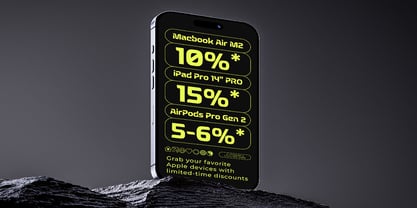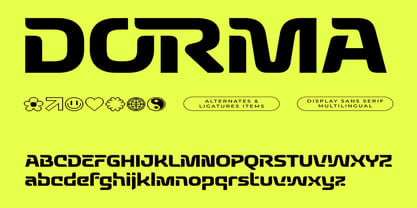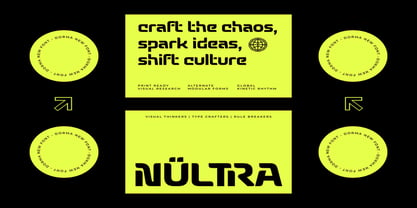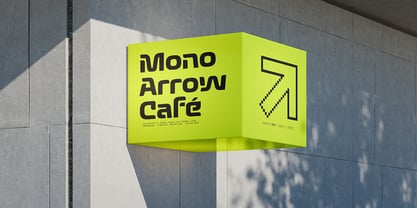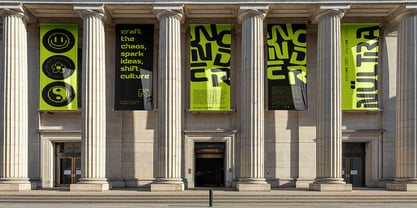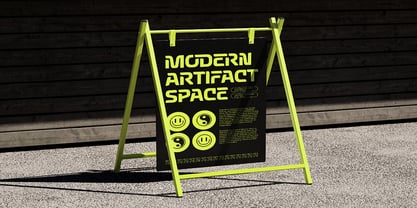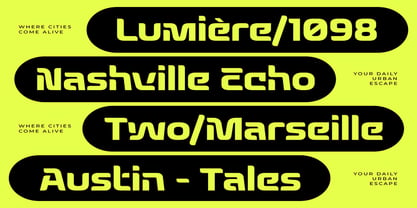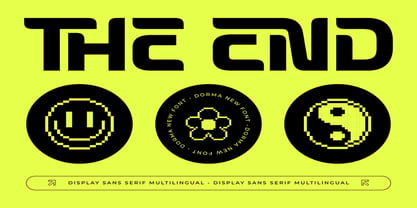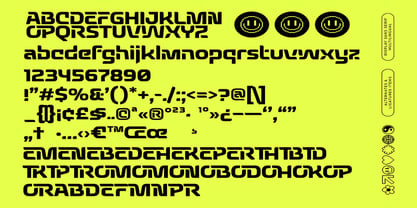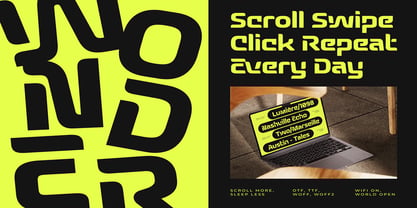
Dorma
Die Schriftfamilie Dorma wurde von Edy Subiyanto entworfen und von Jaruka Creative veröffentlicht. Dorma enthält 1 Stile. Mehr über diese Familie
Break the Rules. Shift the Culture. Meet DORMA
In a digital landscape filled with predictable typography, DORMA is the loud, unapologetic antidote your creative projects have been waiting for.
DORMA is a bold, futuristic display sans serif font built for creators who aren't afraid to stand out. Melding ultra-wide, heavyweight structures with fluid, winding cutouts, it brings a kinetic rhythm to the screen and the street alike.
Designed for the Bold, Crafted for the Global Stage
• Complete Alpha & Numeric Set: Features unique upper and lowercase character sets alongside a matching numerical system layout.
• Global Language Support: Built with extensive multilingual capabilities, allowing your message to break barriers globally.
• Creative Alternates & Ligatures: Push the boundaries of traditional type with modular alternate glyphs and custom ligatures that turn simple text into a complex piece of art.
• Pixel-Perfect Icons & Extras: Access a custom collection of Y2K-inspired pixel icons—from retro smileys and yin-yang symbols to tech-forward arrows—perfect for grounding your futuristic layouts.
From Pixel to Concrete: Versatility in Action
Whether you are designing for a physical storefront or a bleeding-edge mobile interface, DORMA scales effortlessly across mediums:
• Street Level Signage: Grab immediate pedestrian attention with bold, structural character displays that look incredible on sandwich boards and architectural cube signs.
• Editorial & Large-Scale Banners: Create an immersive exhibition vibe. DORMA commands absolute authority when stretched across monumental museum and gallery banners.
• UI/UX & Mobile Apps: Ensure your digital promotions slice through the noise. DORMA’s heavy numerical layouts are perfect for e-commerce discount screens, app interfaces, and landing pages, providing maximum legibility even on mobile displays.
• Cinematic Copy: Stack it, stretch it, and craft the chaos on desktop layouts to build a memorable "Scroll, Swipe, Click, Repeat" rhythm for modern web users.
"Craft the chaos, spark ideas, shift culture." DORMA is built for the visual thinkers, type crafters, and ultimate rule-breakers.
Stop blending into the background. Bring a raw, modern attitude to your headers, branding, apparel, and digital products today with the DORMA Font.